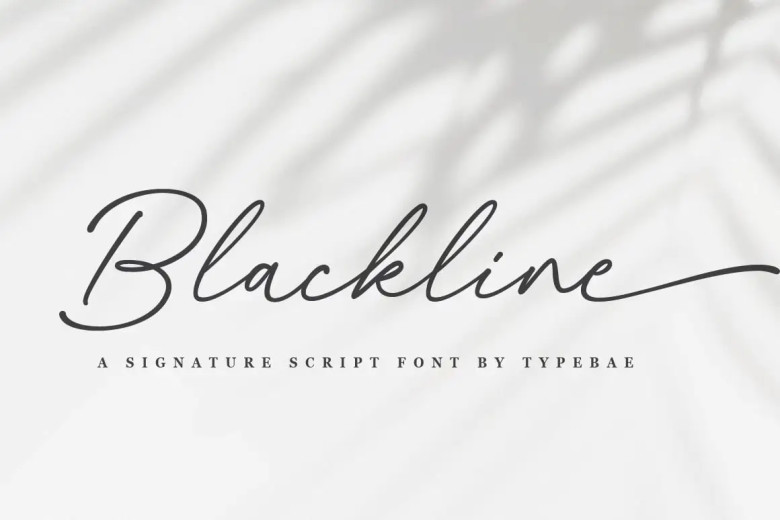
Blackline Font
Blackline Font is an exquisite handmade signature script font featuring elegant swashes at both ends of every letter, as well as ligatures that allow certain combinations of letters to flow more naturally for a more authentic appearance.
Compatible with multiple languages, this versatile and user-friendly font can be used in various design tasks without needing special software programs that support opentype. To take full advantage of beginning and end swashes (tail), just create it separately! We created it solely so it remains user-friendly.
Blackline Signature Font